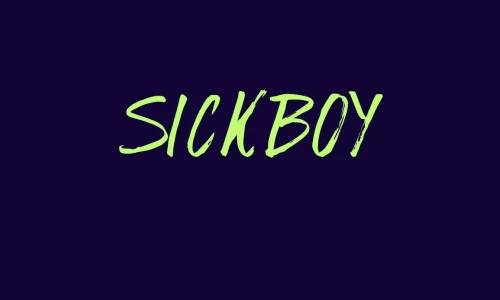
Brux Font blends a contemporary sans-serif look with a personal handwritten feel, making it a distinctive and adaptable choice for typography enthusiasts. Discover the perfect blend of modernity and creativity in typography with Brux Font!
This font is well-suited for projects that aim to convey a sense of modernity with a personal and human touch. Brux Font’s legibility and contemporary aesthetic make it a reliable choice for a variety of applications, from digital interfaces to print materials.